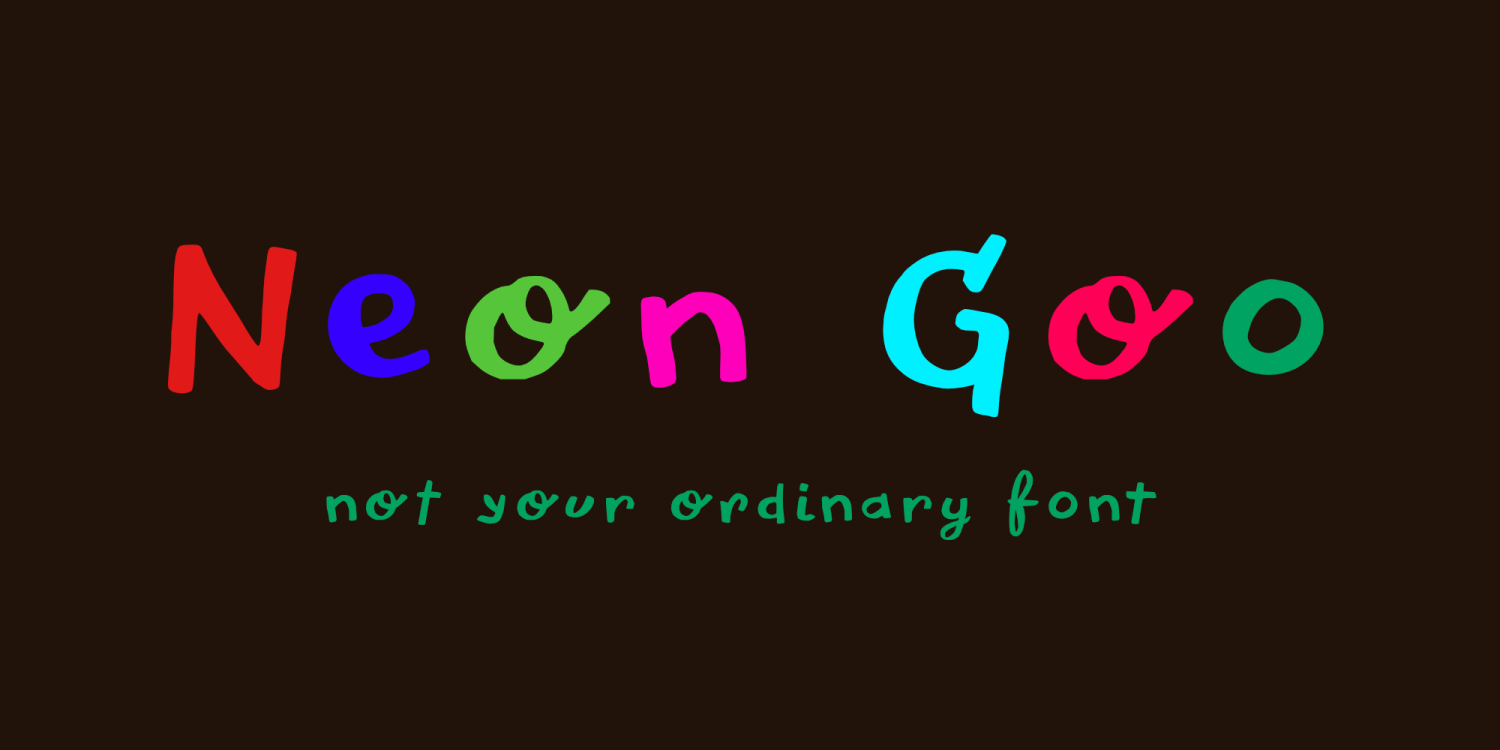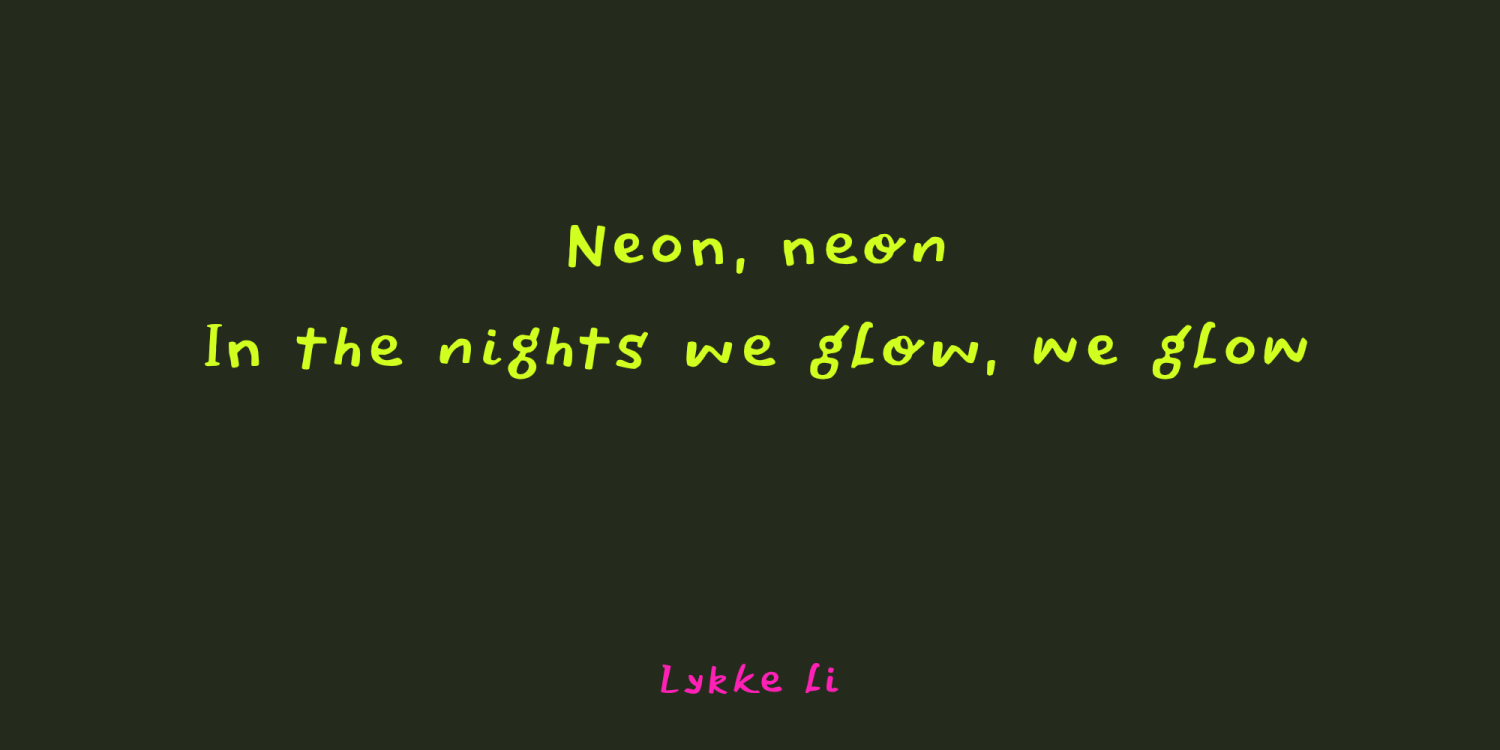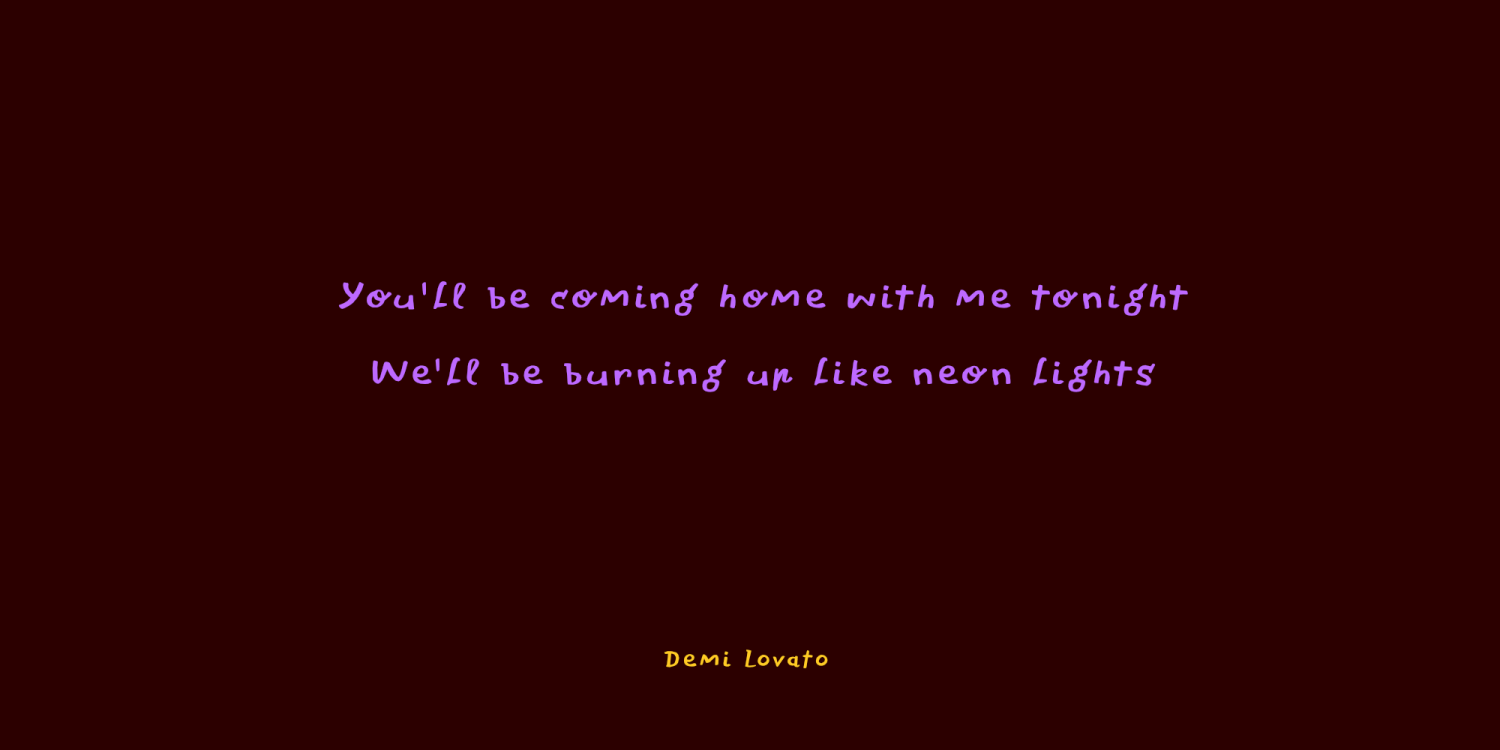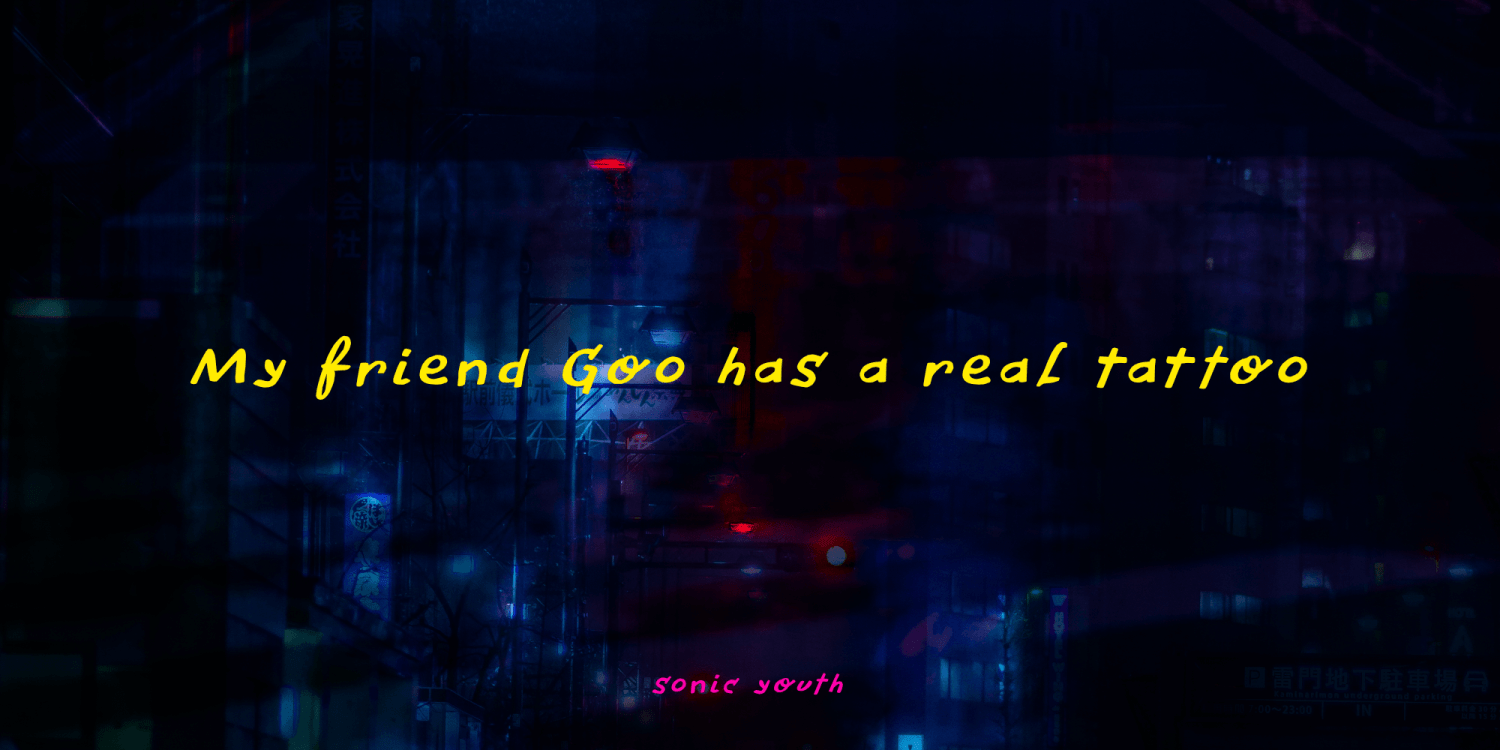
Neon Goo
I’m a bit of a sucker for neon lights, especially in big cities. My favorite city is Tokyo, with its brightly colored billboards and its back alleys full of neon-lit eateries.
At first sight, Neon Goo is a slightly warped font, with some funny looking glyphs and a generous spacing. When you start using it, you’ll find out that the glyphs do complement each other! Neon Goo comes with all diacritics and a set of alternates for the lower case letters.